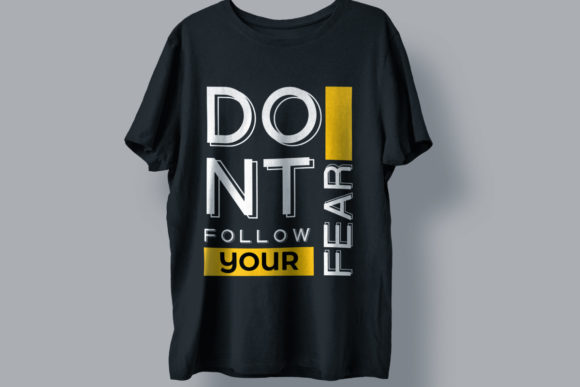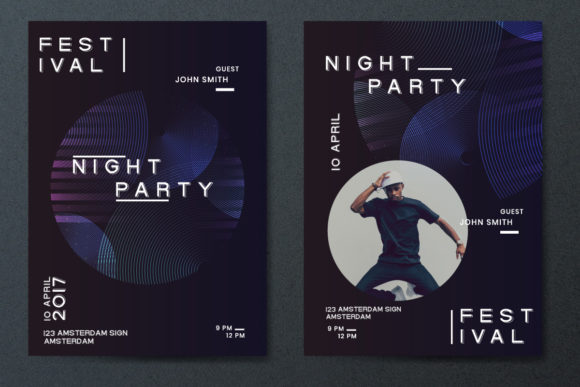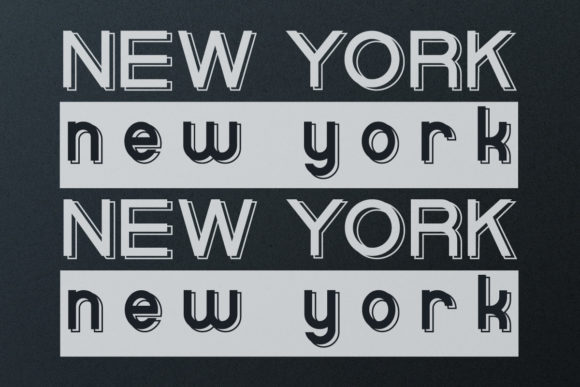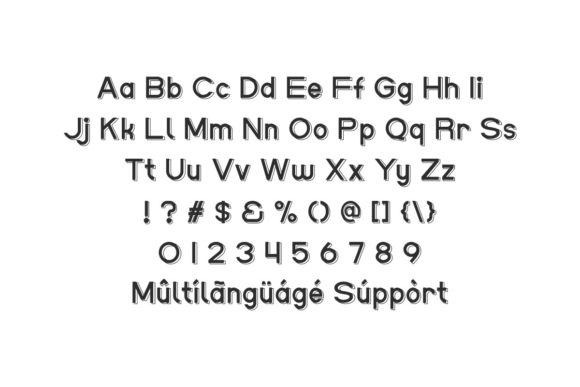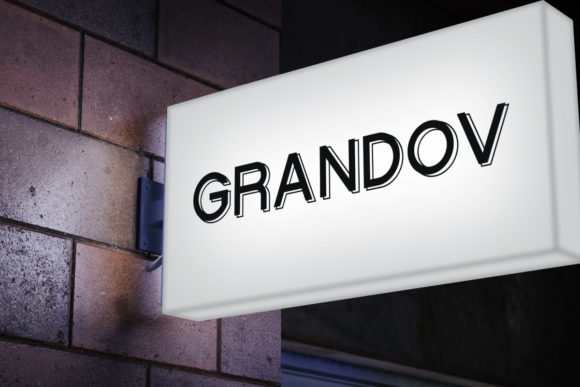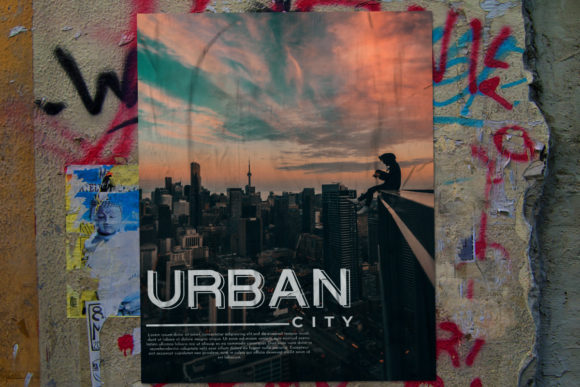
Introduction to Seize Font
There’s nothing quite like the thrill of seeing a design come together, is there? The hours of brainstorming, sketching, and experimenting all culminate in a moment of pure creative bliss – and that’s when you know you’ve found the perfect font to bring your vision to life. For designers, the right font can be the difference between a good design and a great one. That’s why we’re excited to introduce you to the Seize Font, a stunning 3D display font that’s sure to elevate your designs to new heights.
About the Seize Font
The Seize Font is a game-changer for designers looking for a high-quality, versatile font to add some extra flair to their creative projects. With its transparent background and endless variations, this font is perfect for designers who want to add a touch of sophistication and elegance to their designs. Whether you’re working on a free download project or a high-end commercial campaign, the Seize Font is sure to impress.
Get Ready to Seize the Moment
So why settle for a mediocre font when you can have a masterpiece? With the Seize Font, you’ll have access to a wide range of design resources that will help you take your creative projects to the next level. From concept to completion, this font will be your trusted companion, guiding you every step of the way. So what are you waiting for? Download the Seize Font today and get ready to seize the moment!
Key Features of Seize Font
- High-quality, professional design: Seize Font is a premium font that offers a unique and sophisticated look for your creative project.
- Transparent background: The font features a transparent background, allowing you to easily place it over any image or design without any background interference.
- High-resolution design: The font is designed at a high resolution of 300 DPI, making it perfect for use in large-scale designs and print materials.
- Perfect for creative projects: Seize Font is ideal for use in creative projects such as logo design, branding, and advertising, where a unique and eye-catching font is essential.
Honest Review: Seize Font
As a designer, I’m always on the lookout for high-quality design resources that can elevate my creative projects. Recently, I stumbled upon the Seize Font, and I’m excited to share my thoughts on it.
- ✨ It has a beautiful, modern design that’s perfect for creative projects.
- ✨ The font comes with a transparent background, making it easy to use in various design applications.
- ✨ It’s a high-quality font that’s well-suited for both digital and print designs.
- ⚠️ The font is only available in a few weights, which might limit its use in certain design contexts.
- ⚠️ Some users may find the font a bit too bold or overpowering, depending on their personal taste.
Overall, I’m impressed with the Seize Font, and I think it’s a great addition to any designer’s toolkit. With its high-quality design and transparent background, it’s perfect for a wide range of creative projects. Just be aware of its limitations, and use it accordingly.
Seize Font
Tips for Getting the Most Out of Seize Font
For best results, use Seize Font with a high-quality image or design element. Experiment with different font sizes and colors to create a unique look. You can also use Seize Font as a design resource in your creative project, combining it with other elements to create a visually appealing design.
Seize Font is a versatile font that can be used in a variety of creative projects, including logos, business cards, and social media graphics. It’s also a great choice for designers who need a high-quality font with a transparent background, making it easy to combine with other design elements.